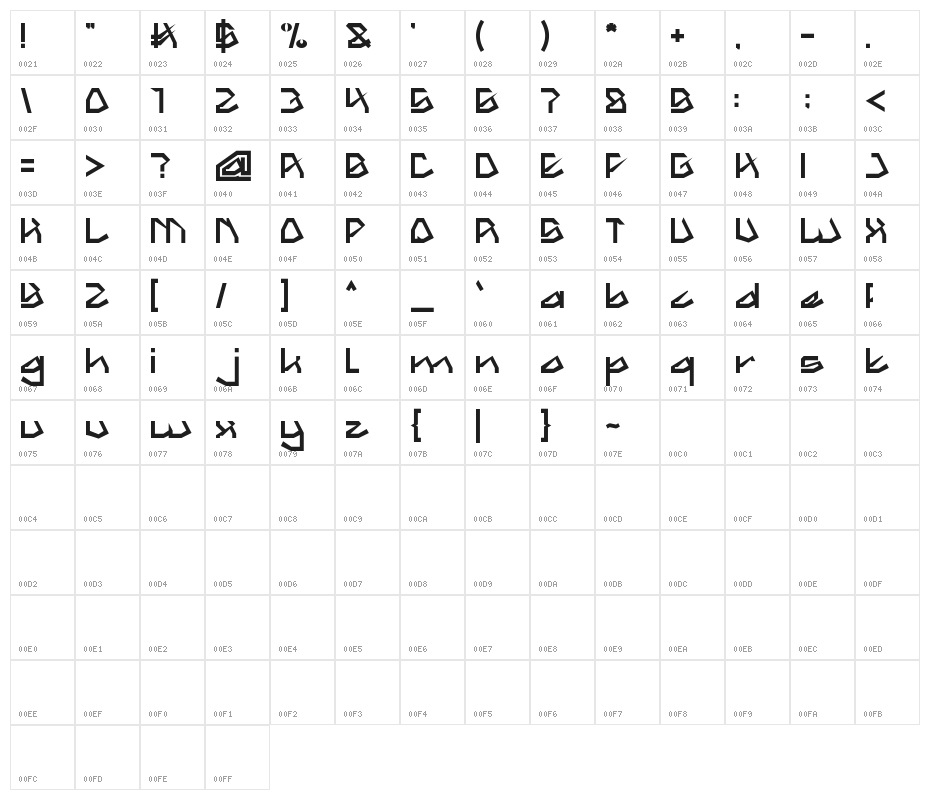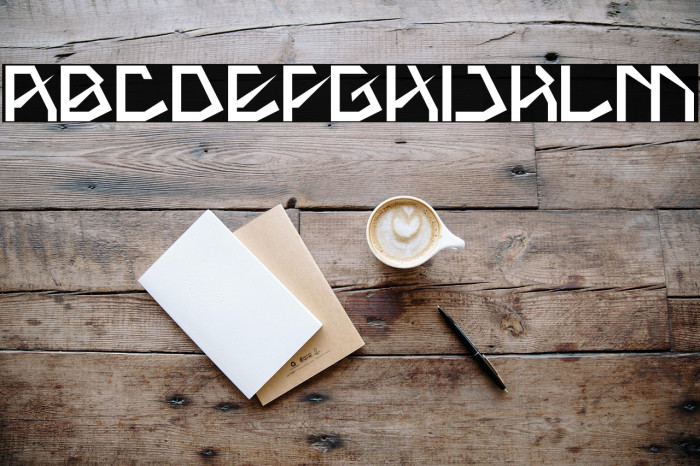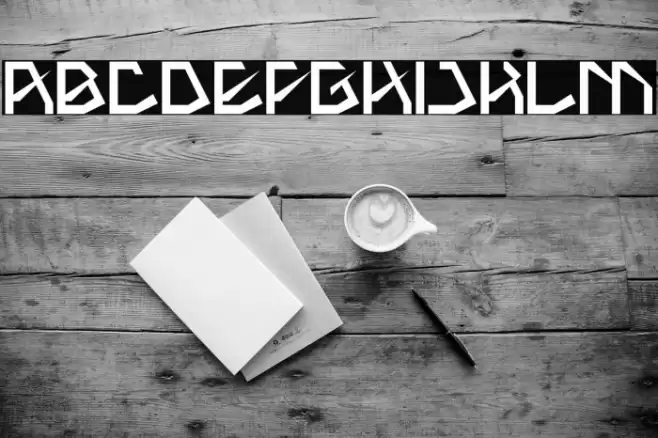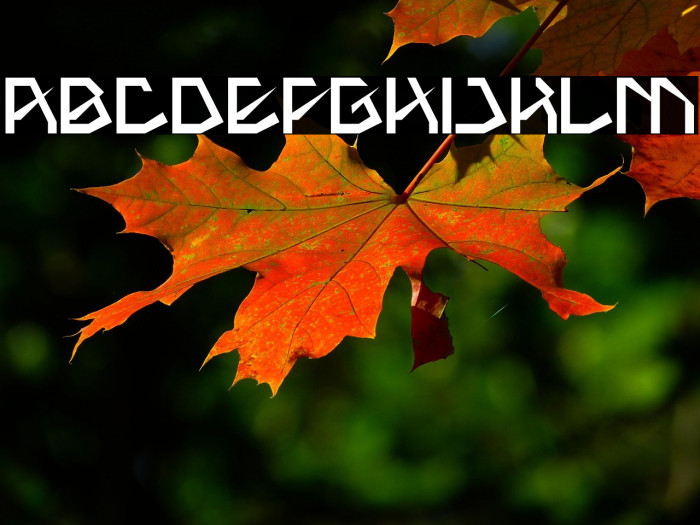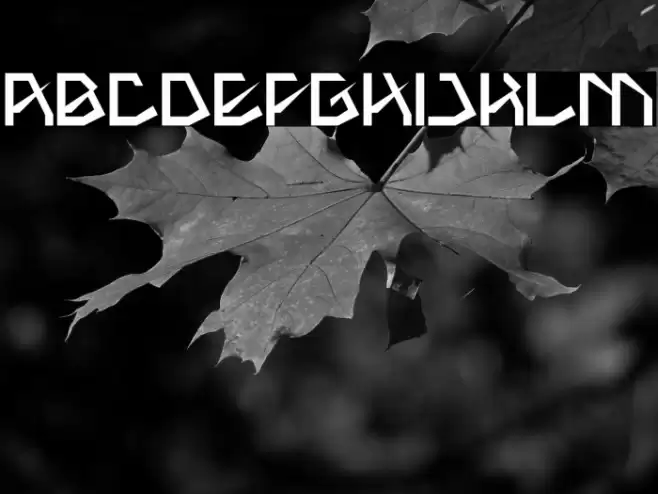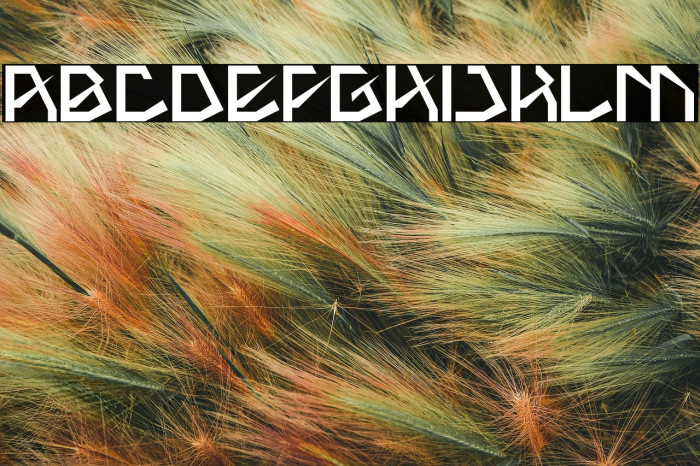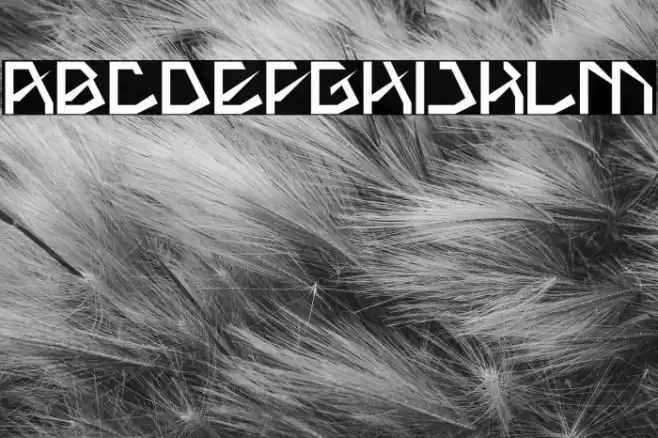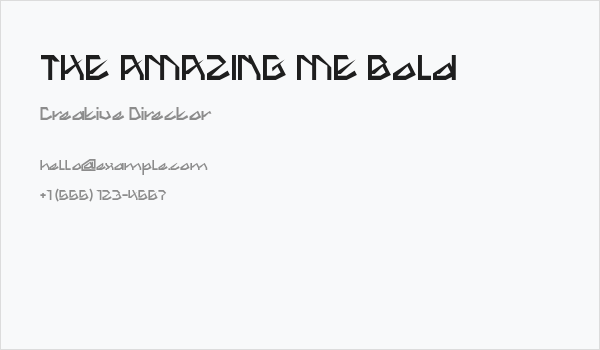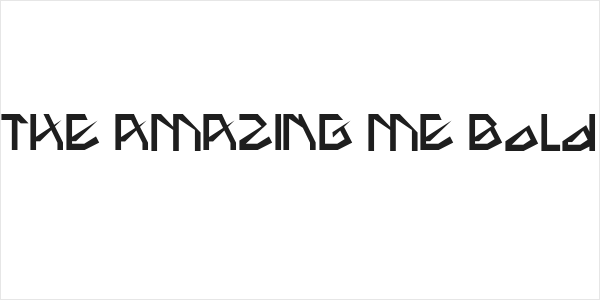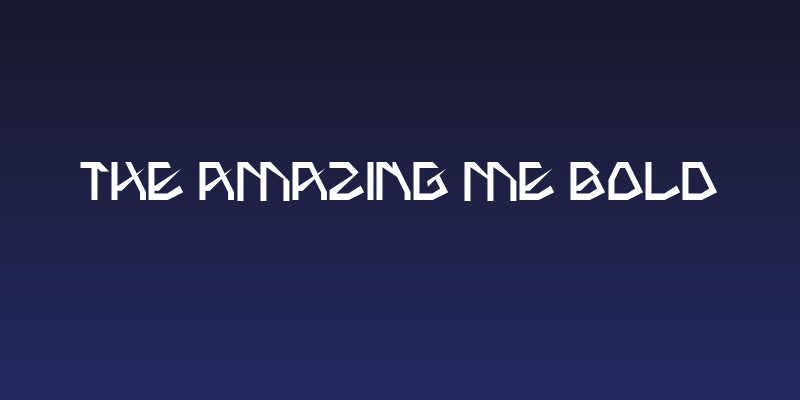
THE AMAZING ME Bold Font
THE AMAZING ME Bold Description
This font features a bold, geometric design with sharp angles and a futuristic aesthetic. The characters are constructed with thick, straight lines and angular edges, creating a sense of modernity and strength. The uppercase and lowercase letters maintain a consistent style, with the lowercase being slightly more compact. Numbers and special characters follow the same design principles, ensuring uniformity across all glyphs. The font's unique style makes it stand out, suitable for projects that require a bold and distinctive look.